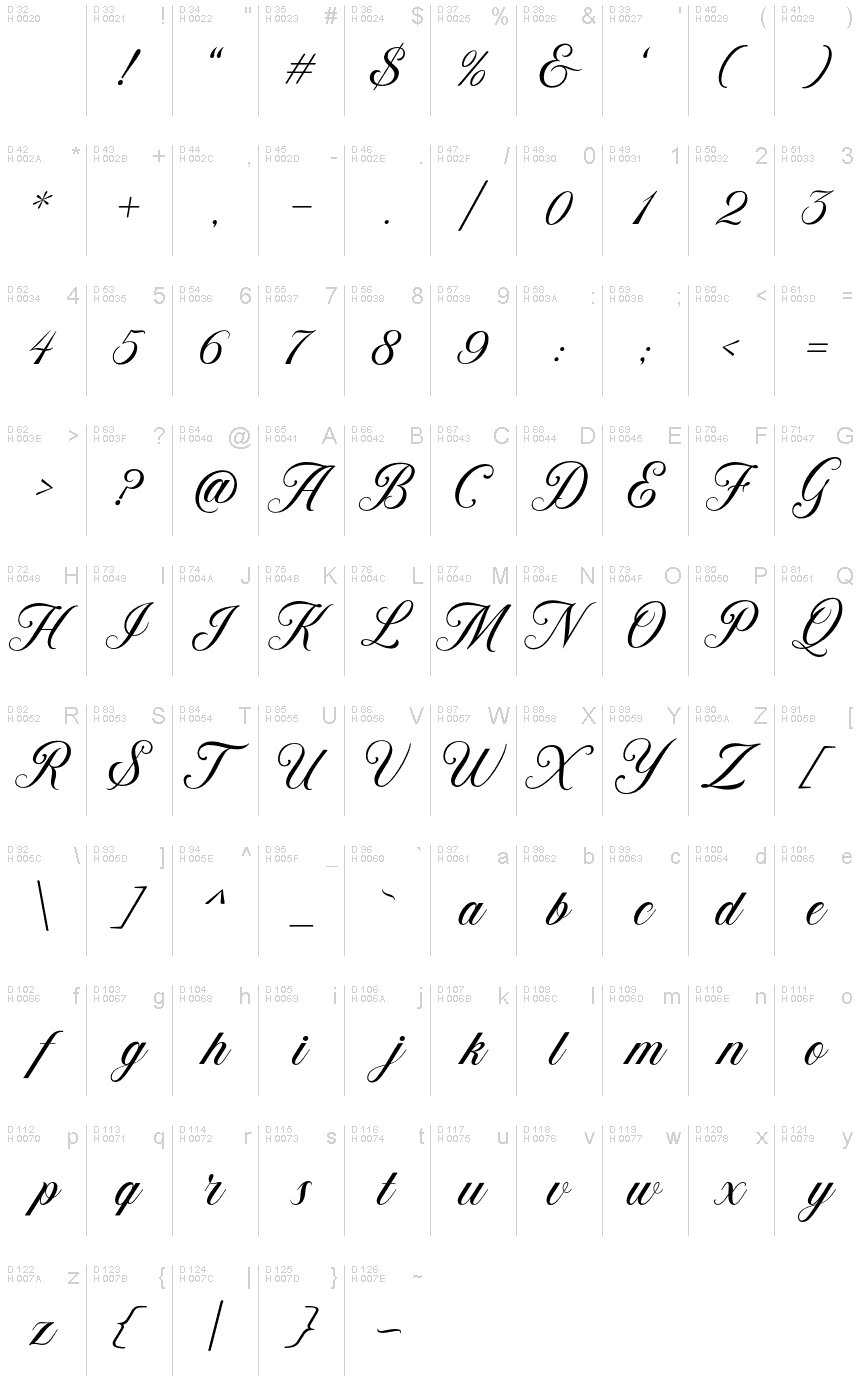
MarlaGriseldaDemo
MarlaGriselda is a light calligraphy font designed by Letterhend Studio. It is perfect for creative projects such as wedding invitations, logos, poster designs, and more! Its delicate lettering and intricate details make it a stunning choice for any project.
Marla Griselda Demo